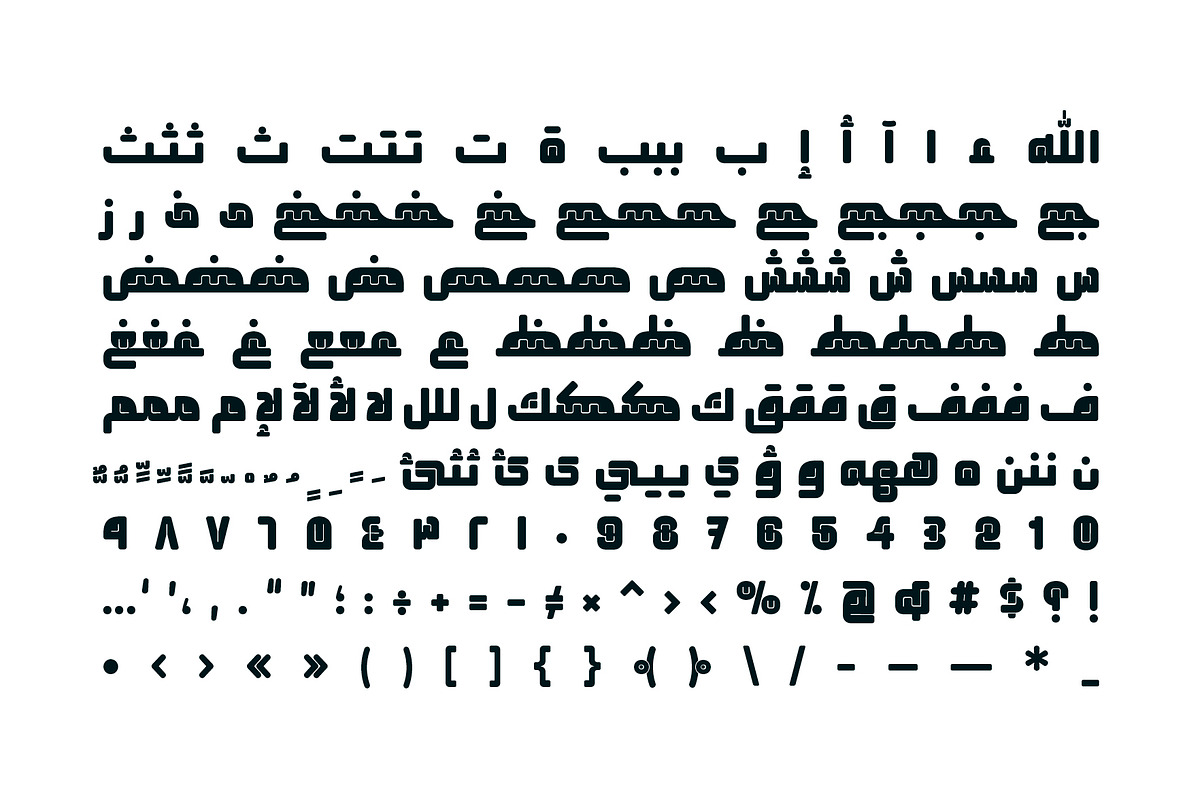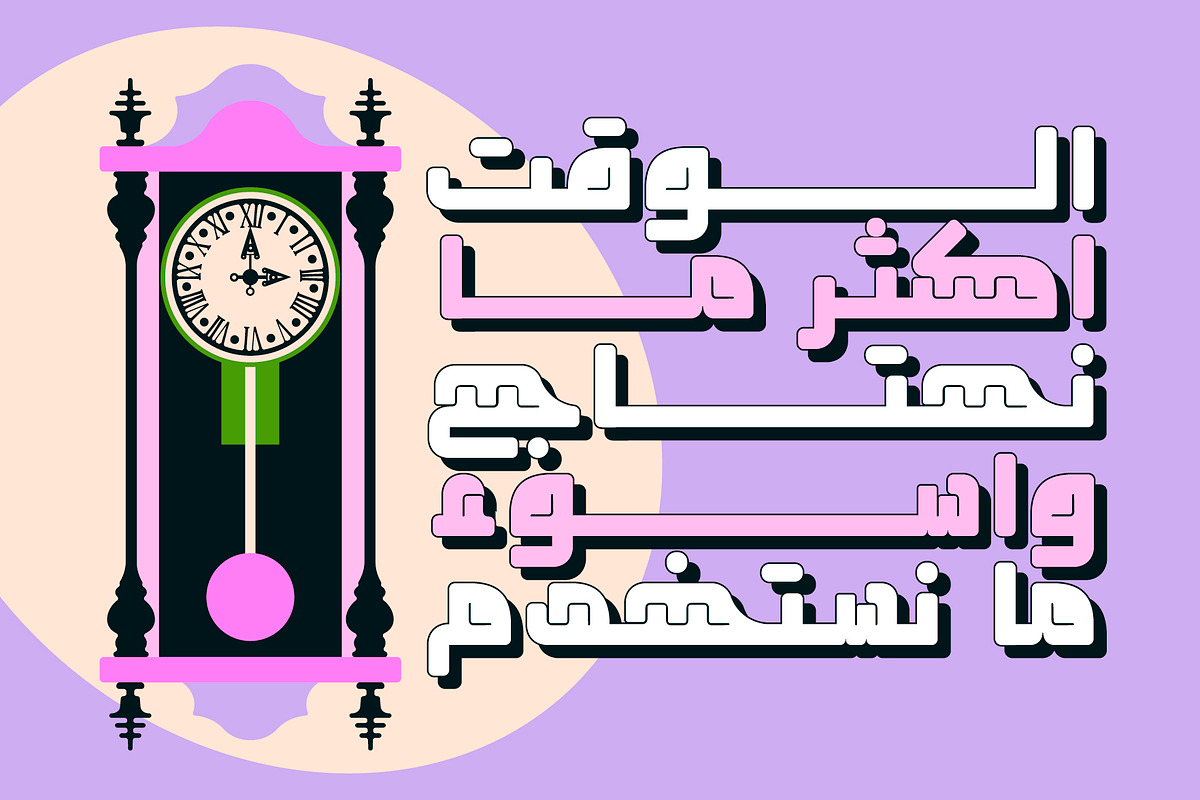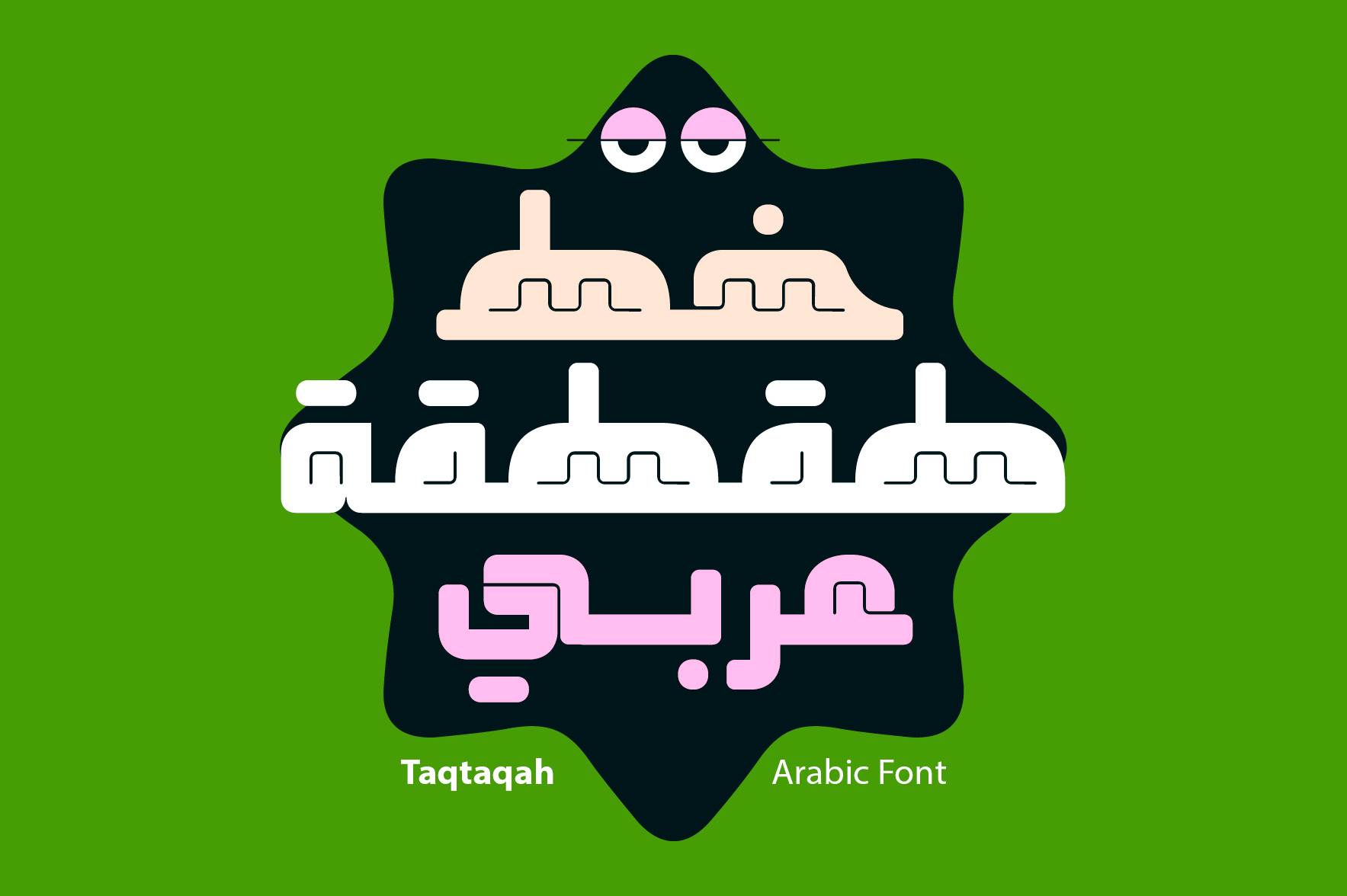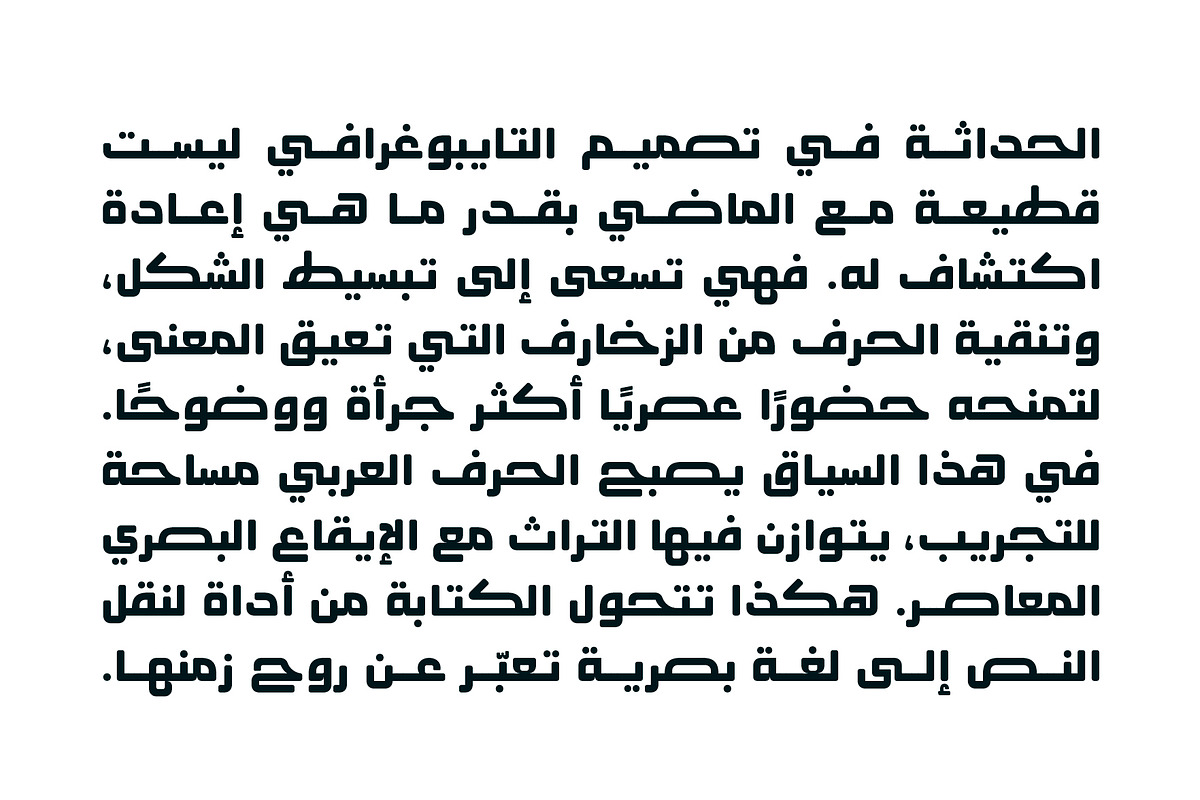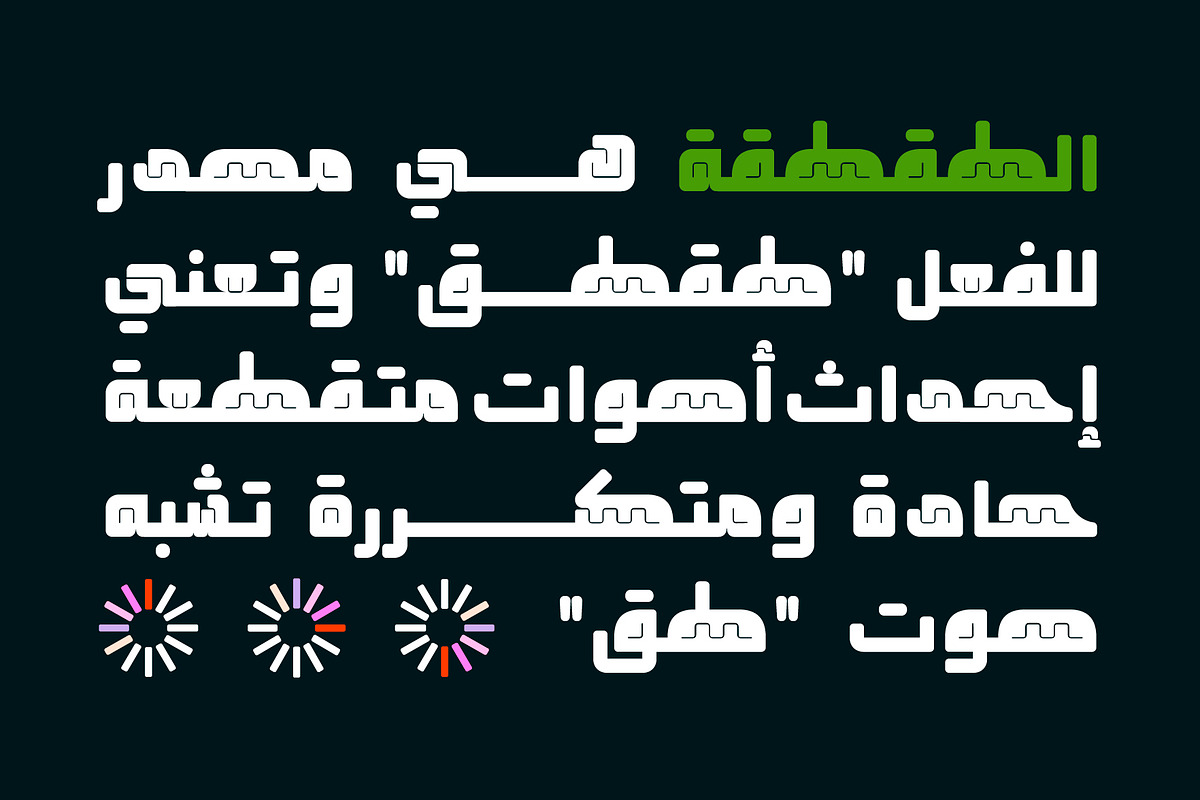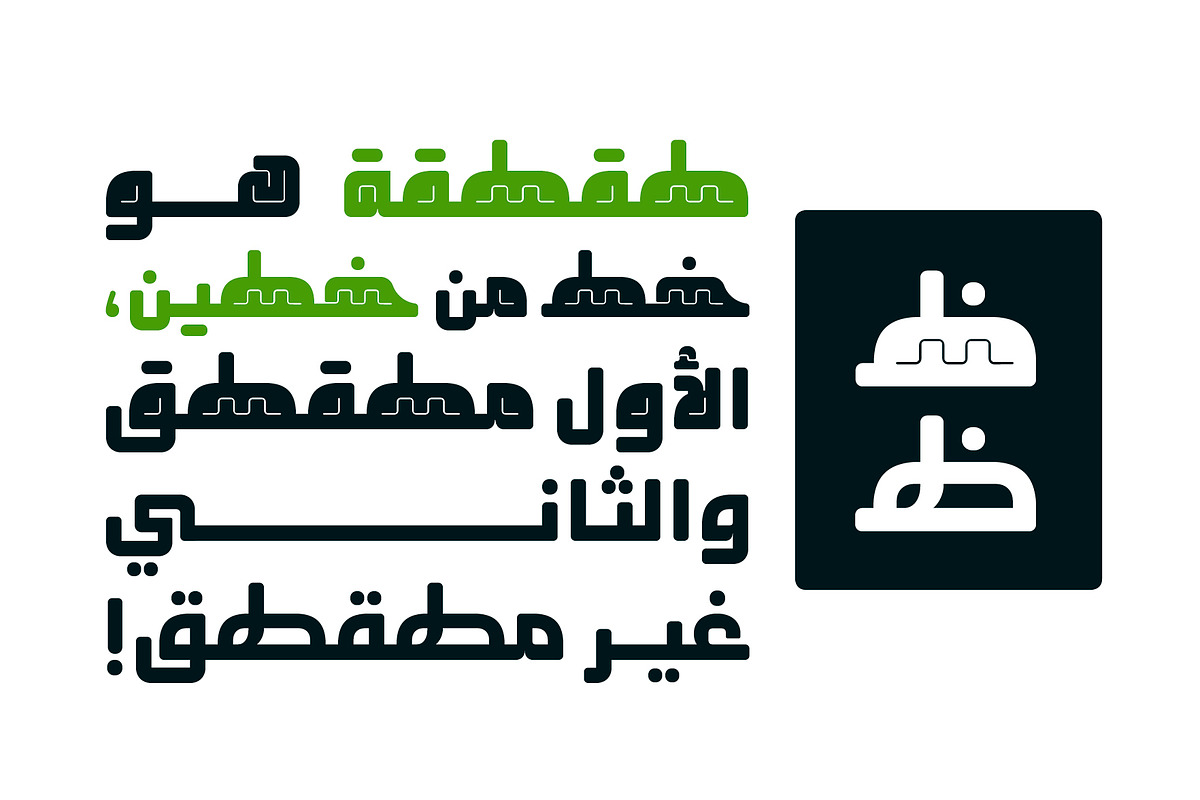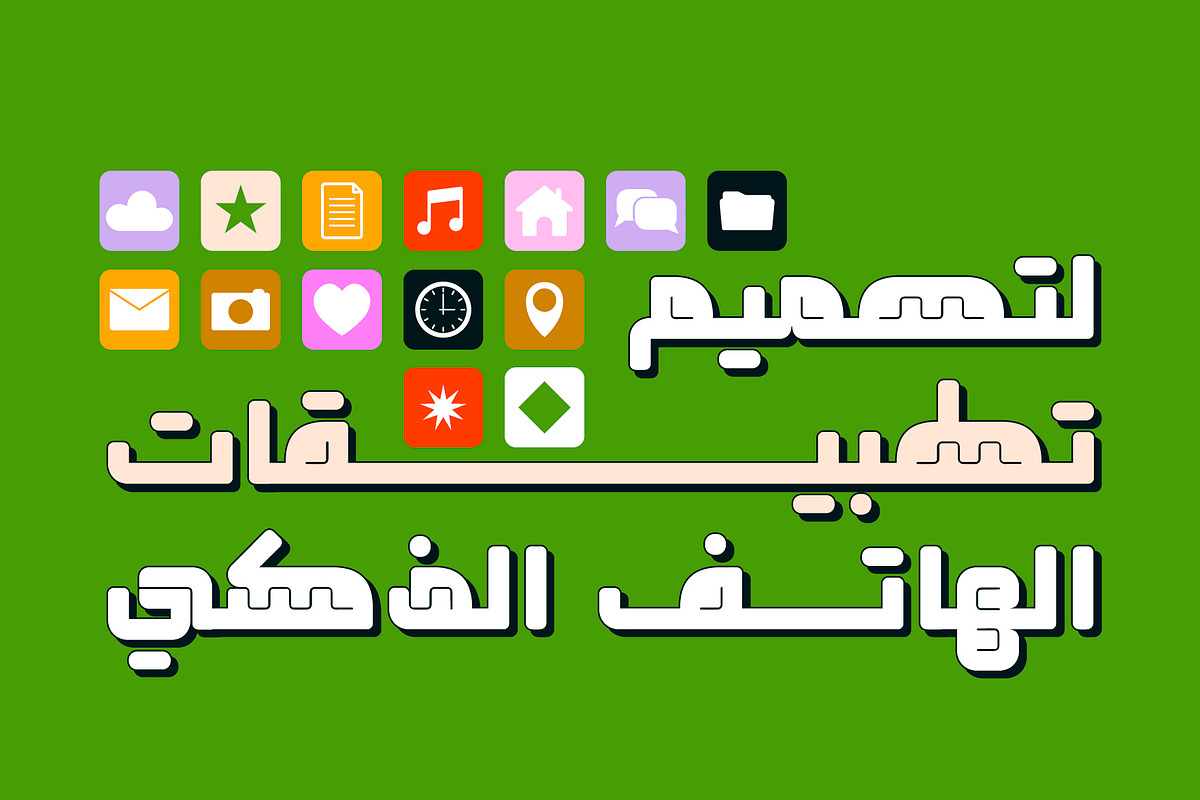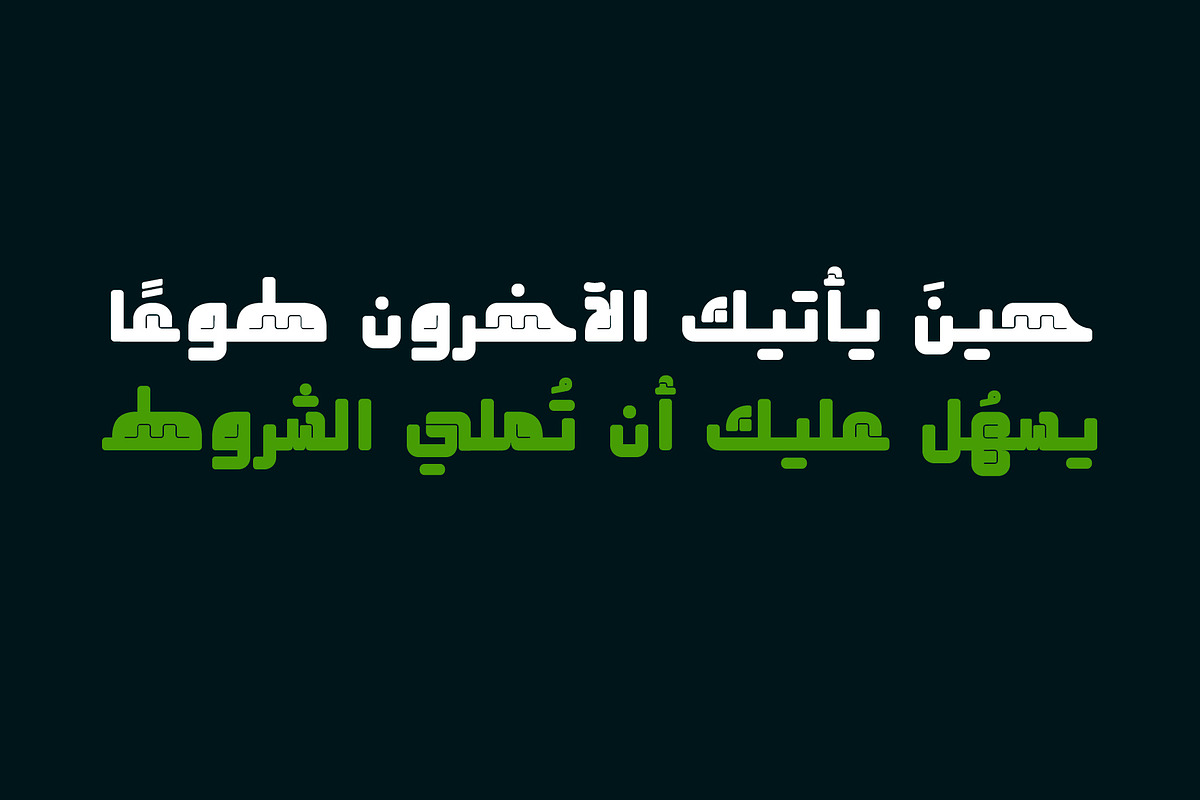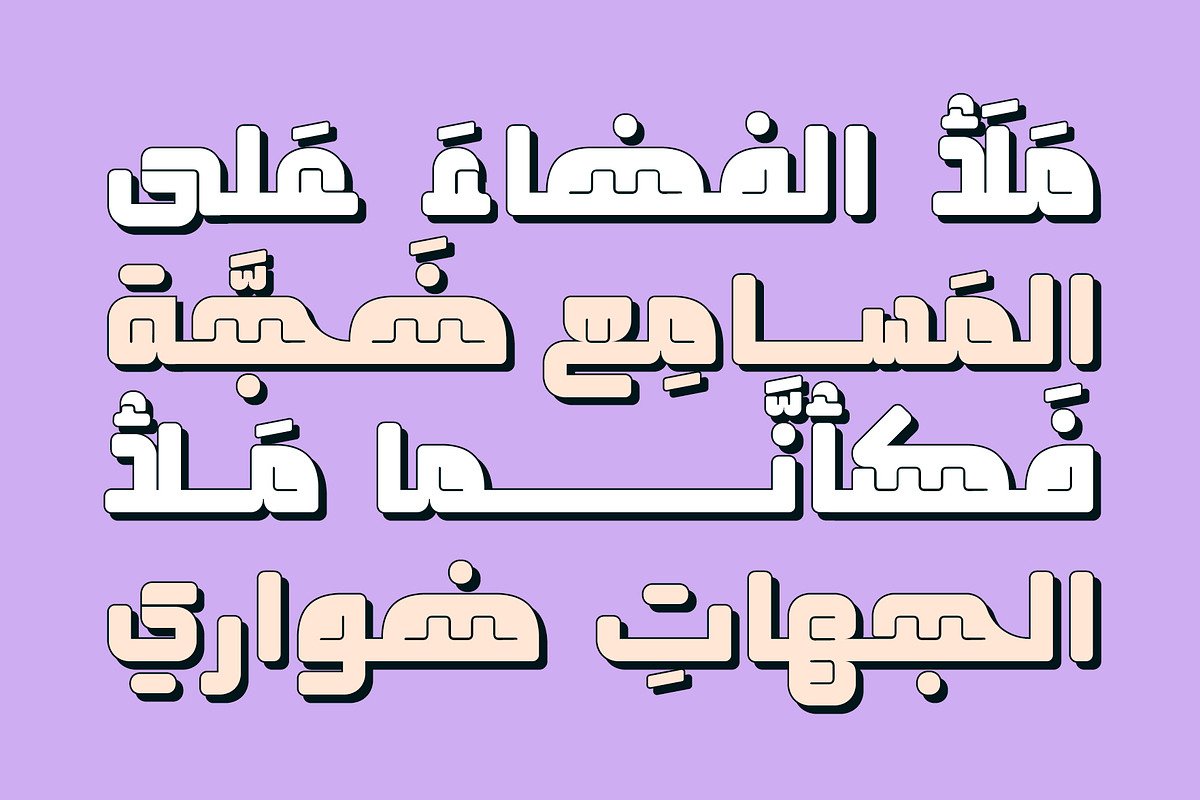
Taqtaqah - Arabic Font
Taqtaqah (the Arabic for 'Click') is an Arabic display font that features geometric letterform design with a unique serrated patterns. The font is perfect for a wide range of creative projects including typography, web, print media, advertising, and mobile applications. Taqtaqah font family consists of two fonts (Normal and Black) and is compatible with both Windows and macOS.